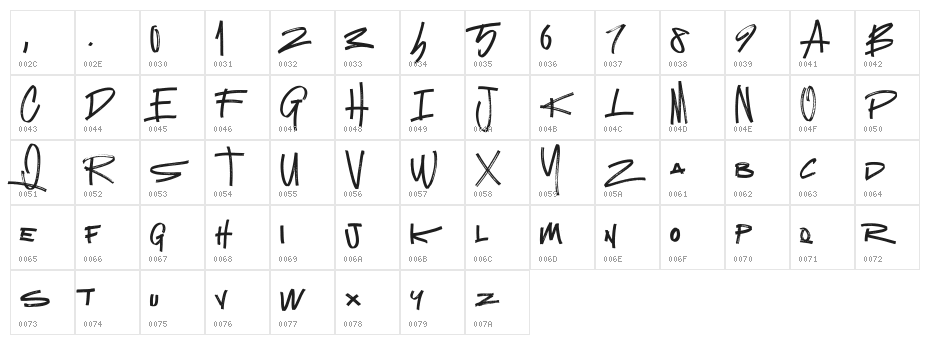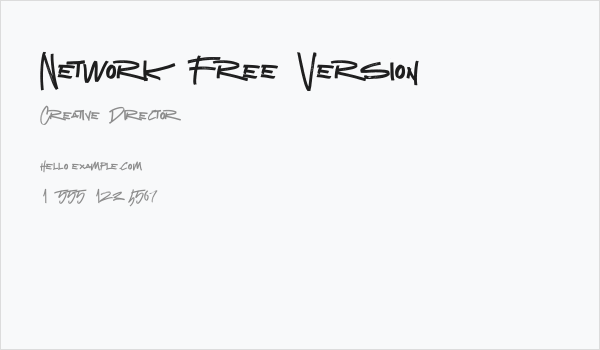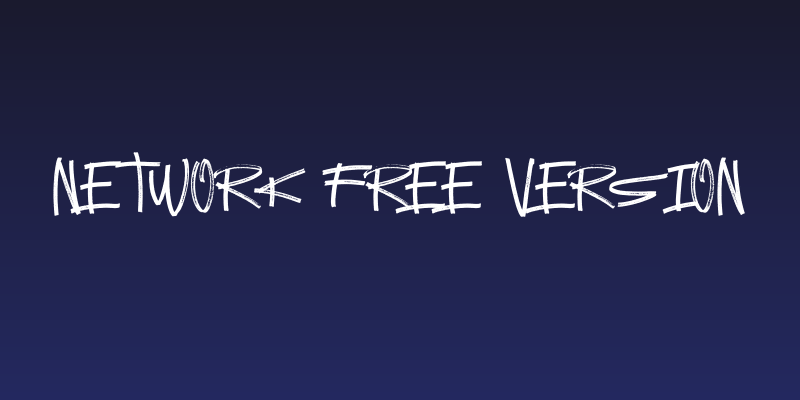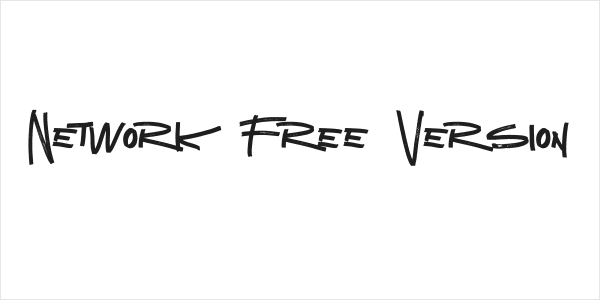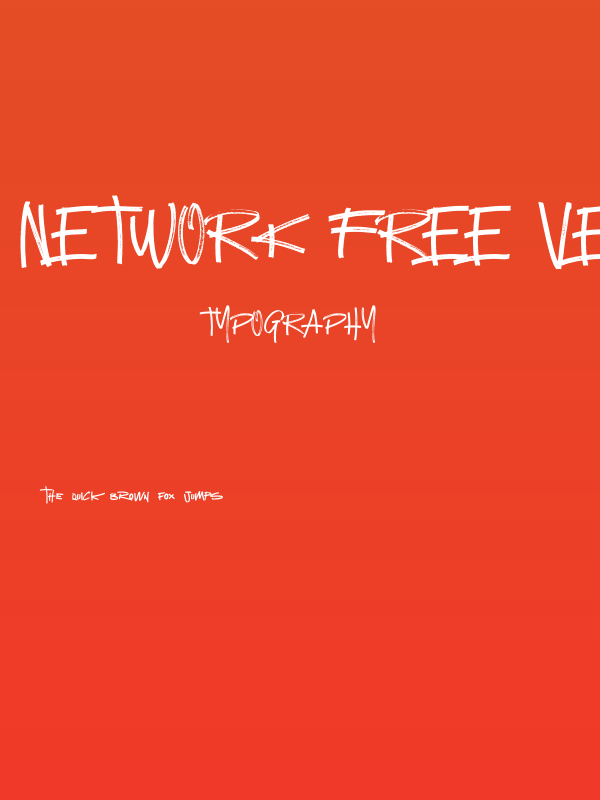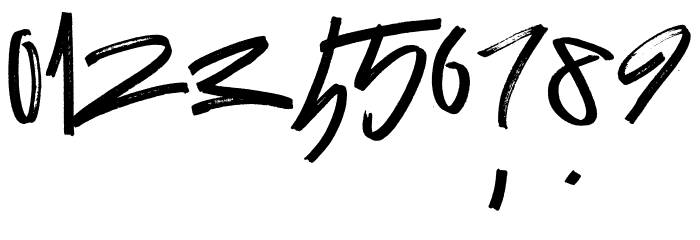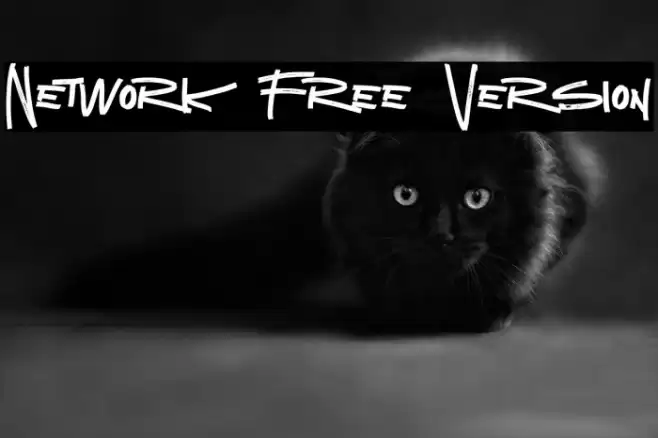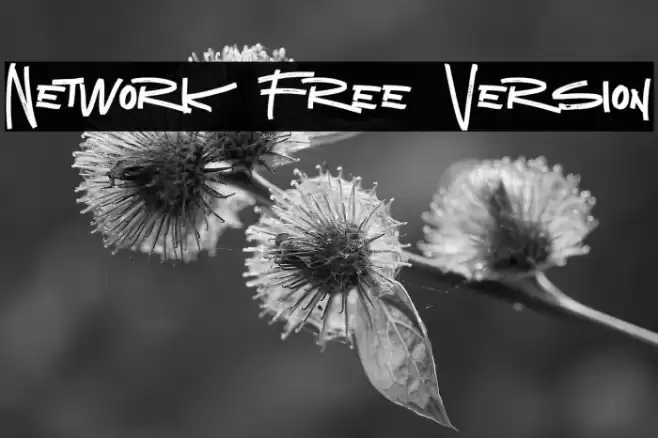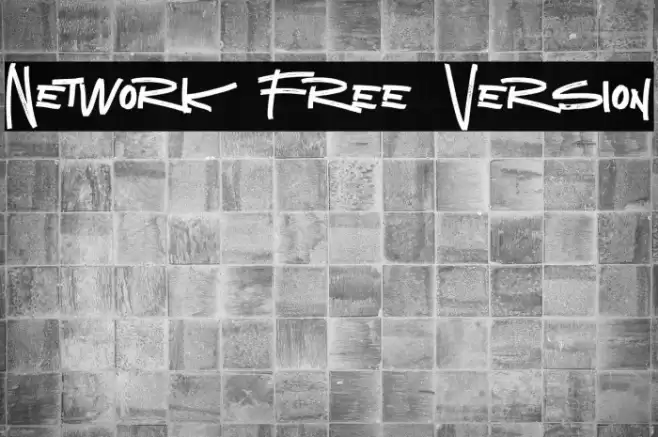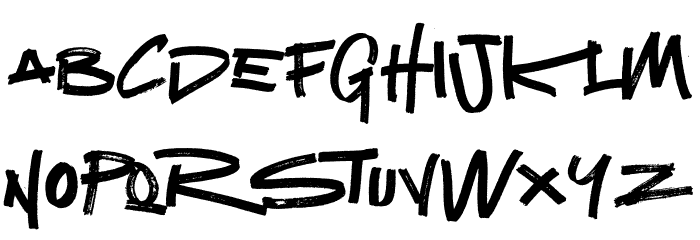
Network Free Version Font
Network Free Version Description
This font exudes a bold and energetic vibe, characterized by its dynamic brush strokes and irregular letterforms. Each character appears hand-drawn, with varying thicknesses that add a sense of movement and spontaneity. The uppercase and lowercase letters maintain a consistent style, while the numbers and special characters complement the overall aesthetic. The font's rough edges and uneven baselines contribute to its raw and expressive nature, making it ideal for projects that require a touch of rebellion and creativity.
| Overall Style | Modern, Urban, Expressive |
| Proposed Projects | Ideal for street art designs, music album covers, edgy branding, and dynamic posters. |